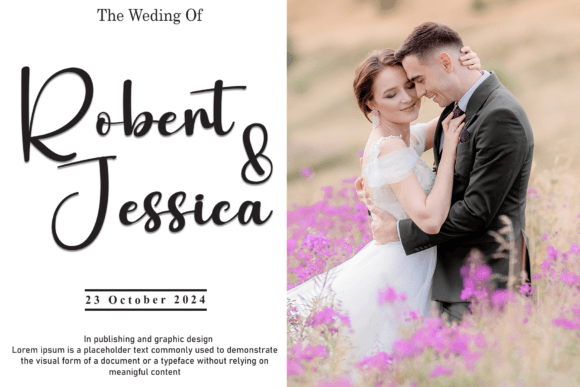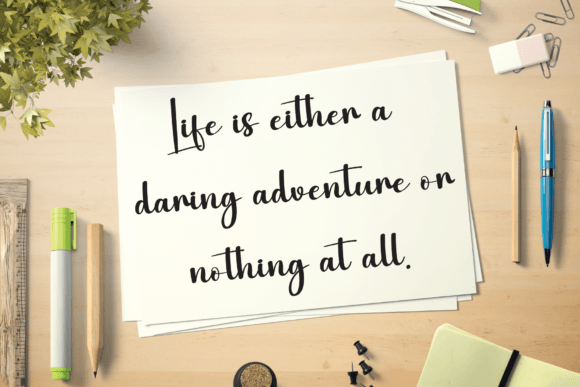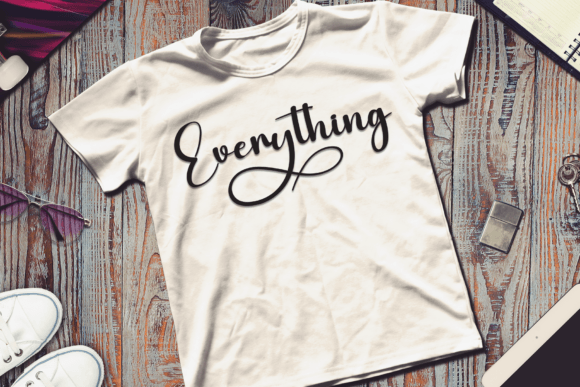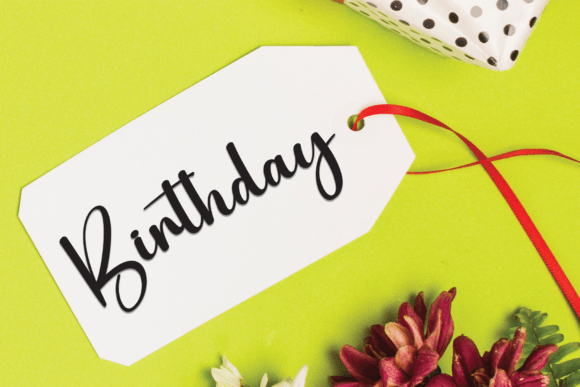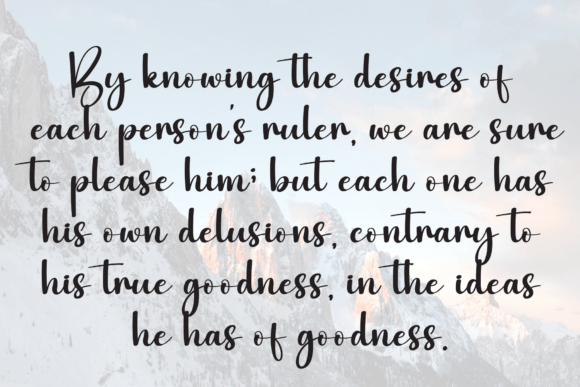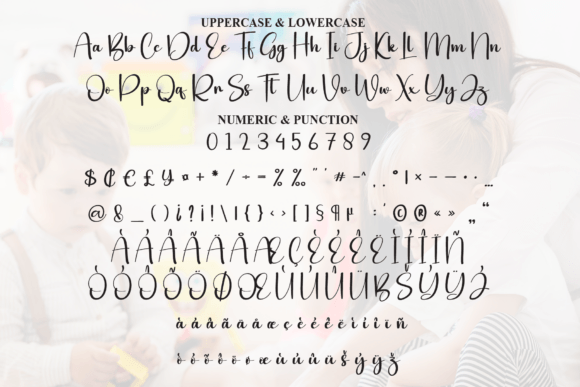
The Perfect Addition to Your Next Creative Project
Have you ever sat at your desk, staring at a blank sheet of paper, waiting for inspiration to strike? You know, that magical moment when the ideas start flowing, and your creativity takes over. It’s a feeling that’s hard to describe, but it’s what drives us to create something truly special. For designers like you, finding the right font can be the key to unlocking that creative spark.
Enter the Babysitter Font, a fun and playful handwritten font that’s perfect for adding a personal touch to your designs. With its smooth and natural style, it’s ideal for creative projects like greeting cards, posters, or invitations. Whether you’re working on a birthday party invitation or a heartfelt thank-you note, the Babysitter Font is sure to bring a smile to your face.
Babysitter Font Key Features
- Unique Characteristics: A playful, cursive font with rounded edges and a friendly feel, perfect for creating a warm and welcoming atmosphere.
- Font Style: A combination of uppercase and lowercase letters, numbers, and punctuation marks, making it suitable for a wide range of applications, from children’s books to educational materials.
Babysitter Font Review
I recently had the chance to review the Babysitter Font, and here’s my honest take.
- Fun and playful design: The font has a unique, whimsical feel to it, making it perfect for creating eye-catching designs.
- Good legibility: Even at smaller font sizes, the text remains clear and easy to read.
- Customization options: The font comes with a range of OpenType features and language support, making it versatile for various design projects.
- Limited font sizes: While the font looks great at larger sizes, it can become a bit pixelated at smaller sizes, making it less suitable for body text.
- Not ideal for formal designs: The playful nature of the font makes it less suitable for formal or corporate designs.
Overall, I think the Babysitter Font is a great choice for designers looking to add a touch of personality to their designs. However, it may not be the best fit for every project. With its unique design and good legibility, it’s perfect for creating attention-grabbing headlines, titles, and other design elements. Just be mindful of its limitations, and you’ll be all set for a fun and creative design experience.
Getting the Most Out of the Babysitter Font
The Babysitter font is perfect for creating playful and child-friendly designs. Tips for getting the most out of it include:
- Using it for nursery or kids’ party invitations.
- Creating colorful and whimsical graphics for children’s books or educational materials.
- Designing custom fonts for kids’ clothing or accessories.
Alternatives to Babysitter Font for Designers
Lato is a modern sans-serif font designed by Łukasz Dziedzic. It’s a great alternative to Babysitter Font when you need a clean and minimalist look. Lato is perfect for use in logos, headings, and body text in digital design projects. It’s highly legible and works well in a variety of contexts.
Comparison to Babysitter Font: Lato has a more neutral tone and is less playful than Babysitter Font, but still conveys a sense of friendliness and approachability.
Montserrat is a sans-serif font designed by Julieta Ulanovsky. It’s a great choice when you need a font that’s modern, sleek, and highly legible. Montserrat is perfect for use in digital design projects, such as logos, headings, and body text. It’s also great for use in print design projects where a modern, urban feel is desired.
Comparison to Babysitter Font: Montserrat has a more urban feel than Babysitter Font and is less playful, but still conveys a sense of sophistication and modernity.
Yes, Babysitter Font is available in multiple font weights, including Light, Regular, Medium, Bold, and Extra Bold. This allows designers to choose the right font weight to match their design style and requirements.
Q: What is the technical specification of Babysitter Font?
The technical specification of Babysitter Font includes the following details:
- Font family: Babysitter
- Font style: Sans-serif
- Font weights: Light, Regular, Medium, Bold, Extra Bold